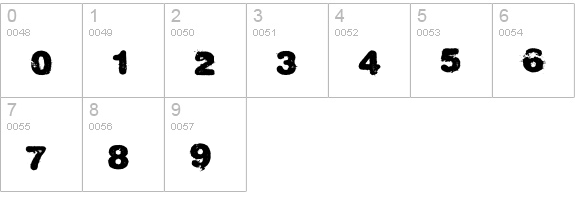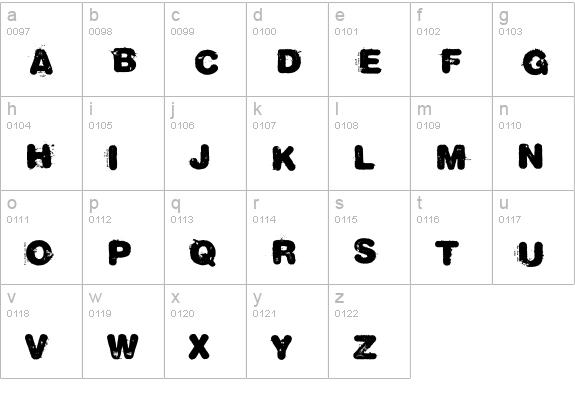
Trashold Font Details
Introducing Trashold Font, a striking typeface that embodies the essence of edgy and unconventional design. With its unique combination of bold lines, sharp angles, and gritty textures, Trashold Font is perfect for making a powerful statement in your creative projects. This versatile font is not only visually captivating but also highly legible, making it ideal for a wide range of applications. Whether you're designing a poster, branding materials, or even a logo, Trashold Font will add a touch of raw energy and modernity to your work. But what makes Trashold Font even more appealing is that it is freely available to download at FontsMarket.com. Yes, you read that right - this exceptional font can be yours at no cost! Embrace your creative freedom and explore the endless possibilities that Trashold Font offers. So why wait? Take advantage of this incredible opportunity and elevate your designs with the distinct character and free-spirited essence of Trashold Font. Download it now at FontsMarket.com and let your creativity roam free.